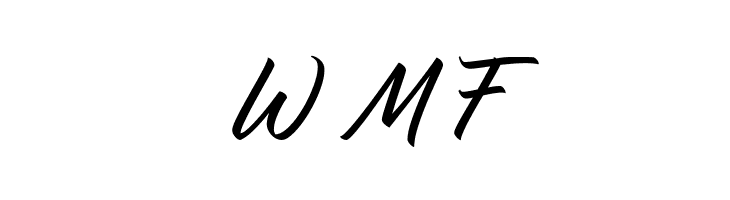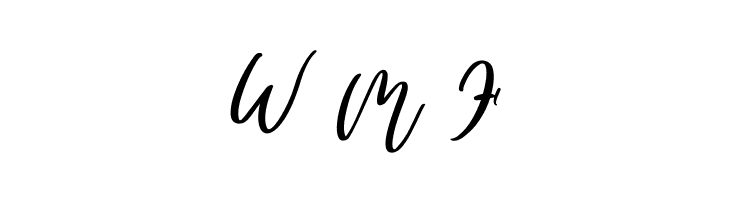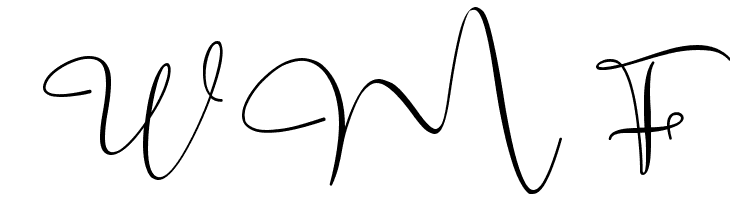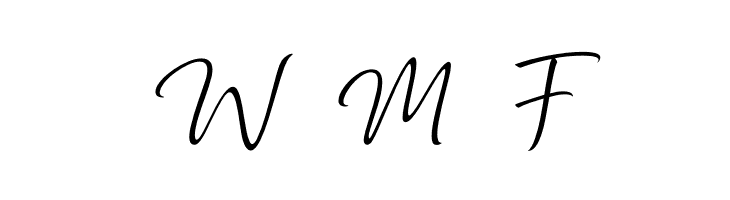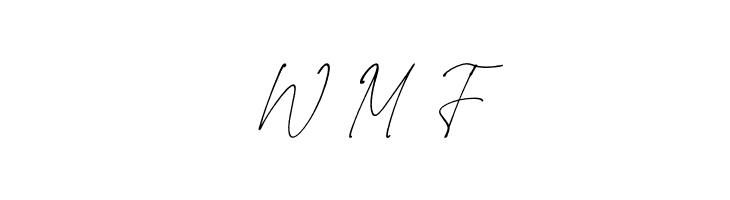
A flowing, cursive font with elegant and sophisticated styling.
A charming script font with elegant swirls and a playful flair.
An elegant script font with flowing, interconnected letters and a sophisticated style.
A lively, hand-drawn font with bold, sweeping strokes and dynamic curves.
A dynamic and expressive script font with fluid, cursive strokes.
A flowing, elegant script font with a natural handwritten style.
A bold, elegant script font with fluid, cursive strokes.
A slanted, elegant script font with smooth, flowing strokes.
An elegant, flowing script font with graceful curves and sophisticated flair.